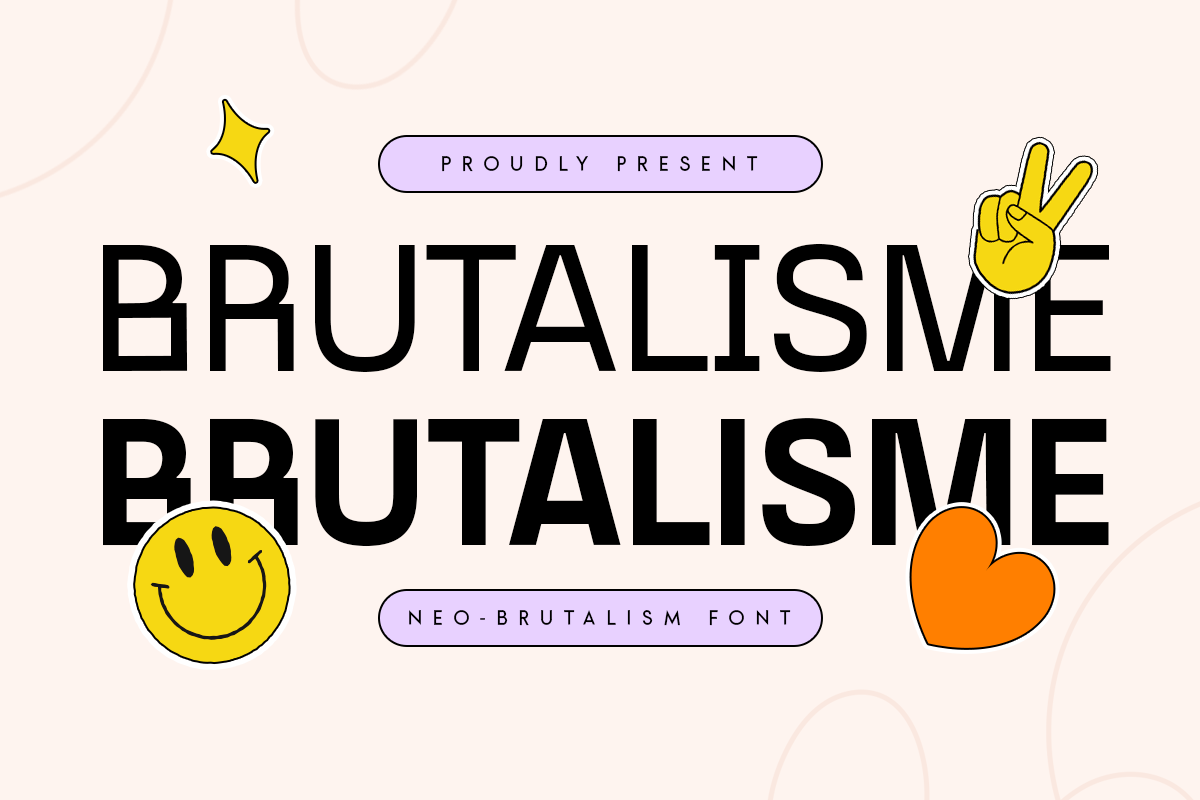
Brutalisme - Neo-Brutalism Font
Bold neo-brutalism meets minimalist elegance in this striking contemporary sans serif typeface. Brutalisme delivers the perfect fusion of modern brutalist aesthetics and clean minimalist design. This versatile corporate font features an iconic sans serif structure with unique character variations that can be effortlessly combined using alternate glyphs to create distinctive shapes in seconds. The minimalist styling and exceptional legibility make this typeface ideal for diverse design applicatio...